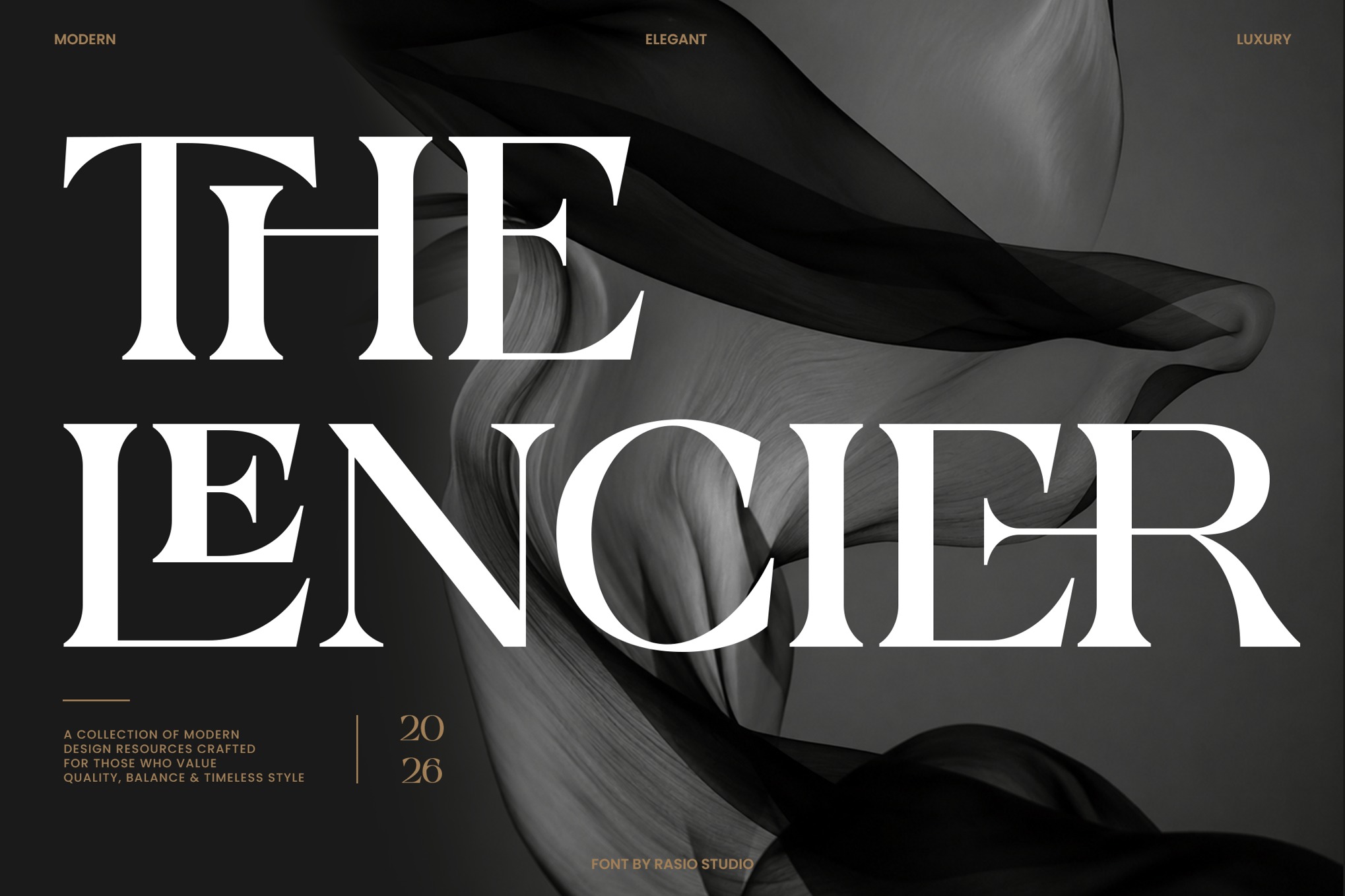
The Lencier – Modern Serif Font
The Lencier – Modern Serif Font is a distinctive and expressive font crafted to bring personality, structure, and creative energy into your projects. The Lencier Modern Luxury Font is a sophisticated modern serif typeface distinguished by striking contrast, refined curves, and elegantly sculpted letterforms. Its contemporary editorial character blends timeless sophistication with modern precision, creating a distinctive visual rhythm that feels both graceful and commanding. Carefully balanced proportions, sharp serif details, and smooth transitions between thick and thin strokes give the typeface a polished appearance that stands out across high-end creative work.
Designed to deliver a strong visual presence without sacrificing readability, The Lencier brings depth and personality to branding, editorial, and promotional projects. The font includes uppercase and lowercase characters, numerals, punctuation, and ligature support, offering the flexibility needed for professional design applications. Whether used for logo design, packaging, magazine headlines, fashion campaigns, wedding stationery, or digital content, its refined structure helps create memorable typography with a confident and enduring appeal across both print and screen environments.